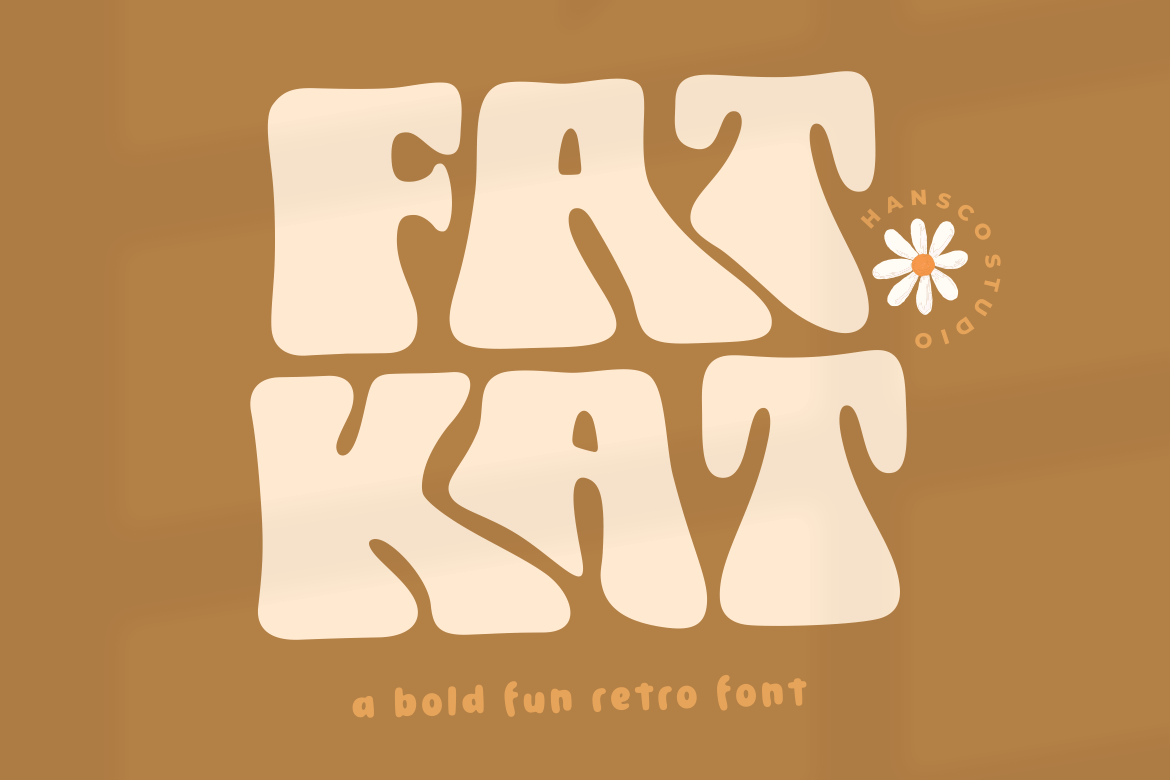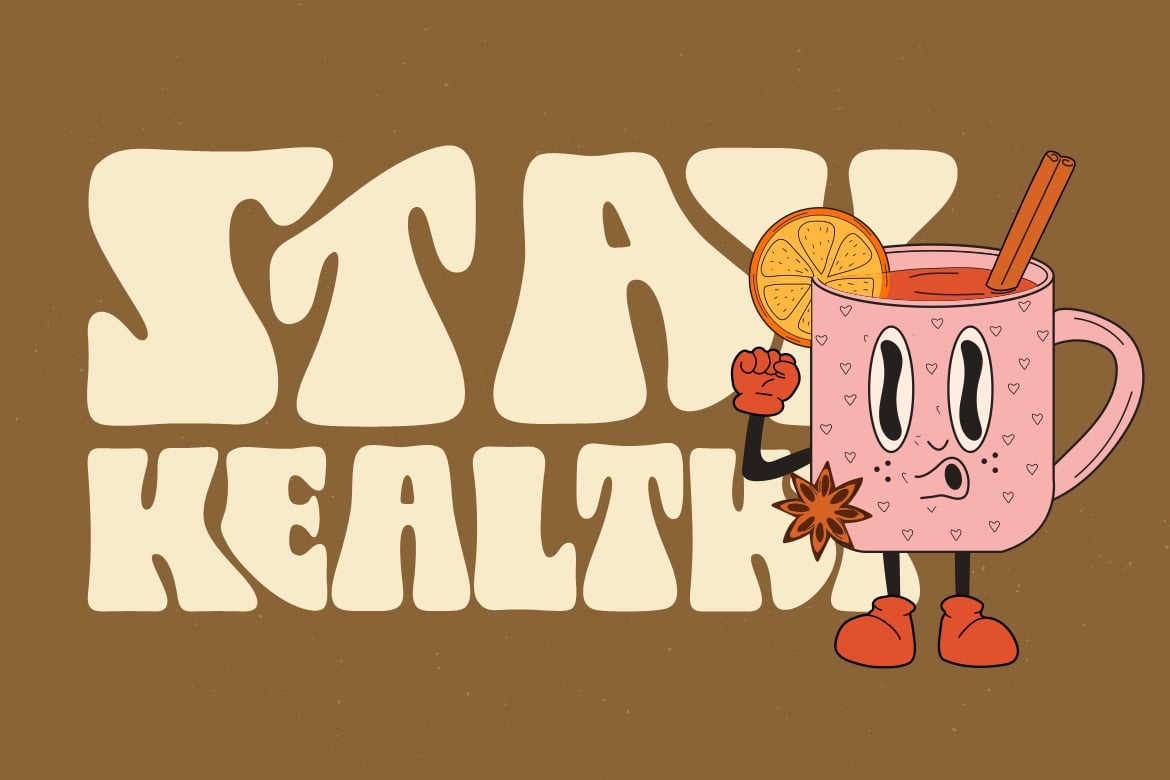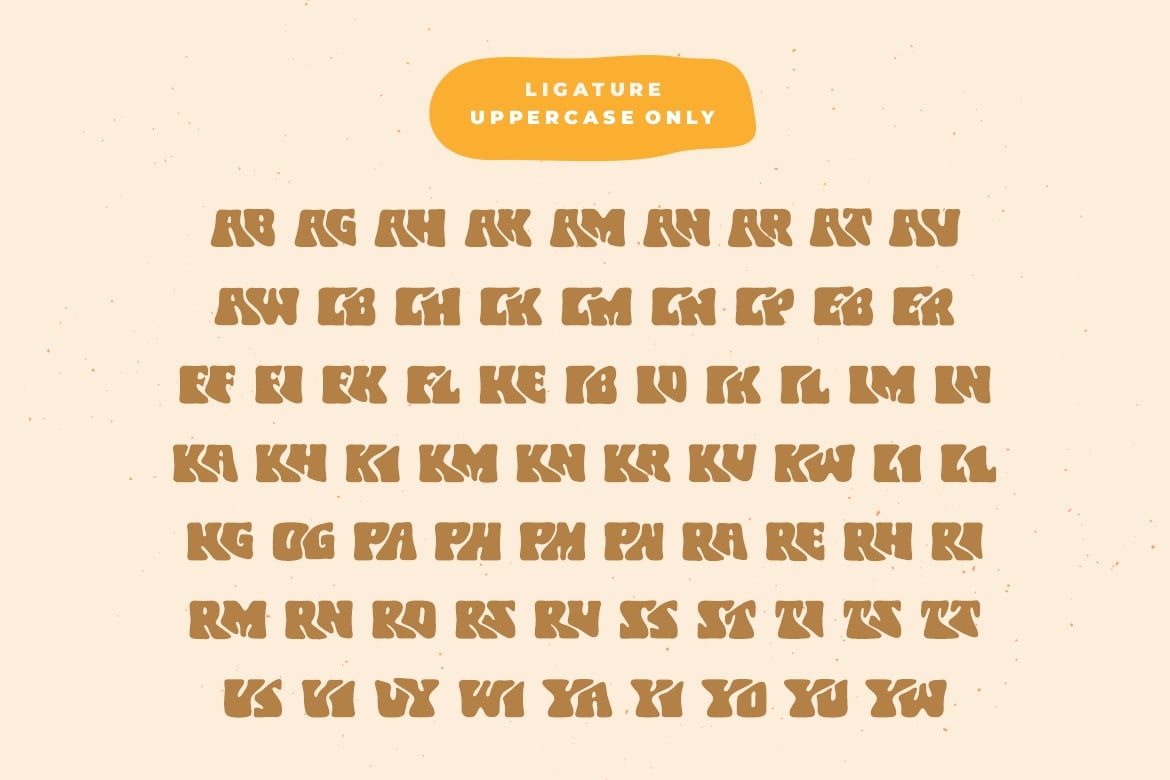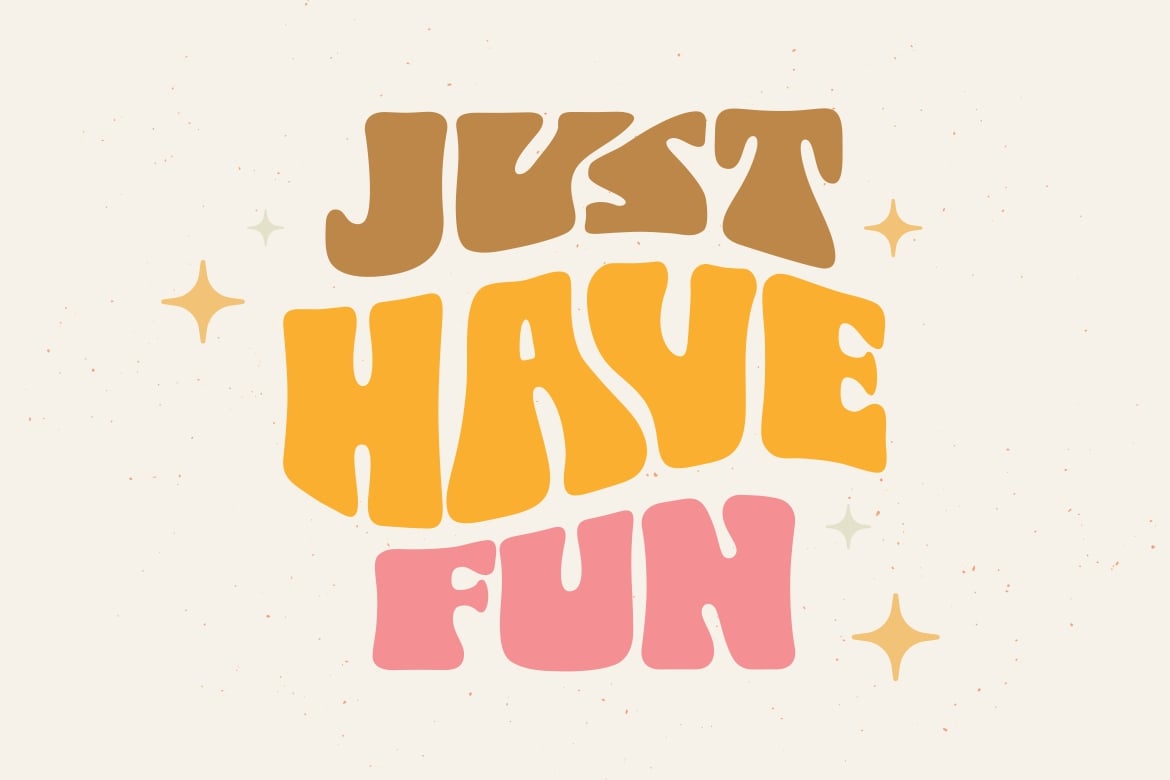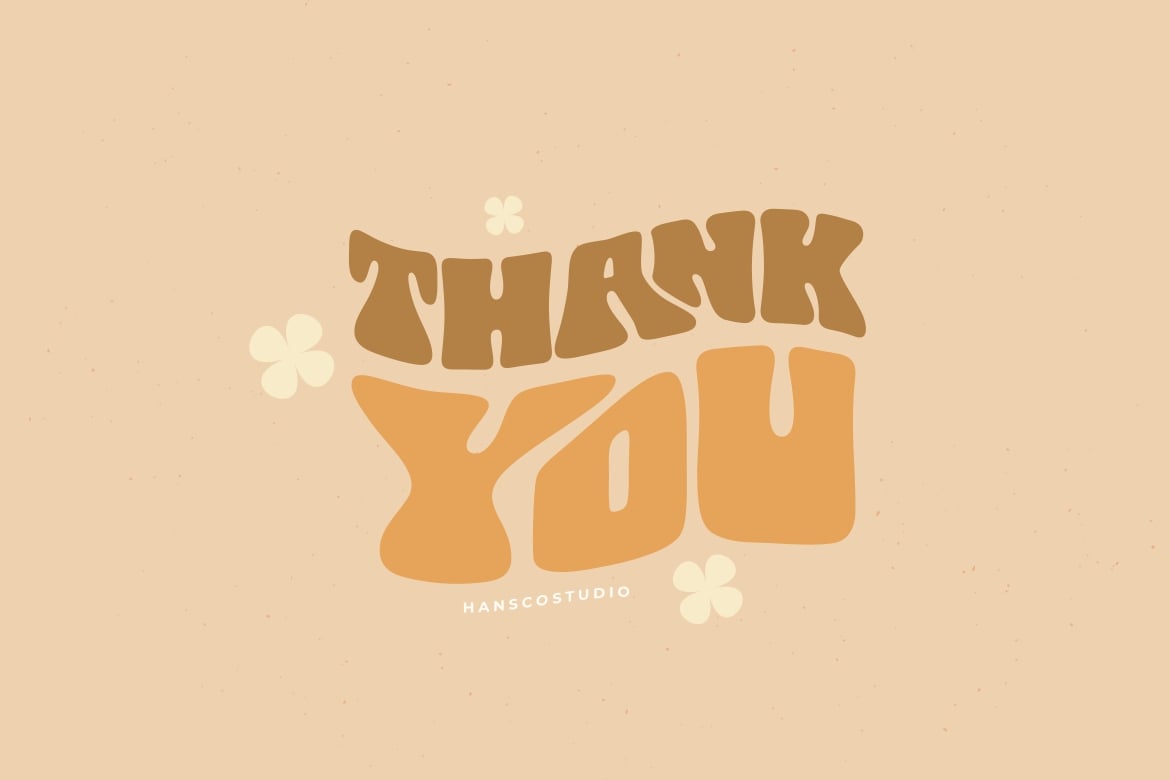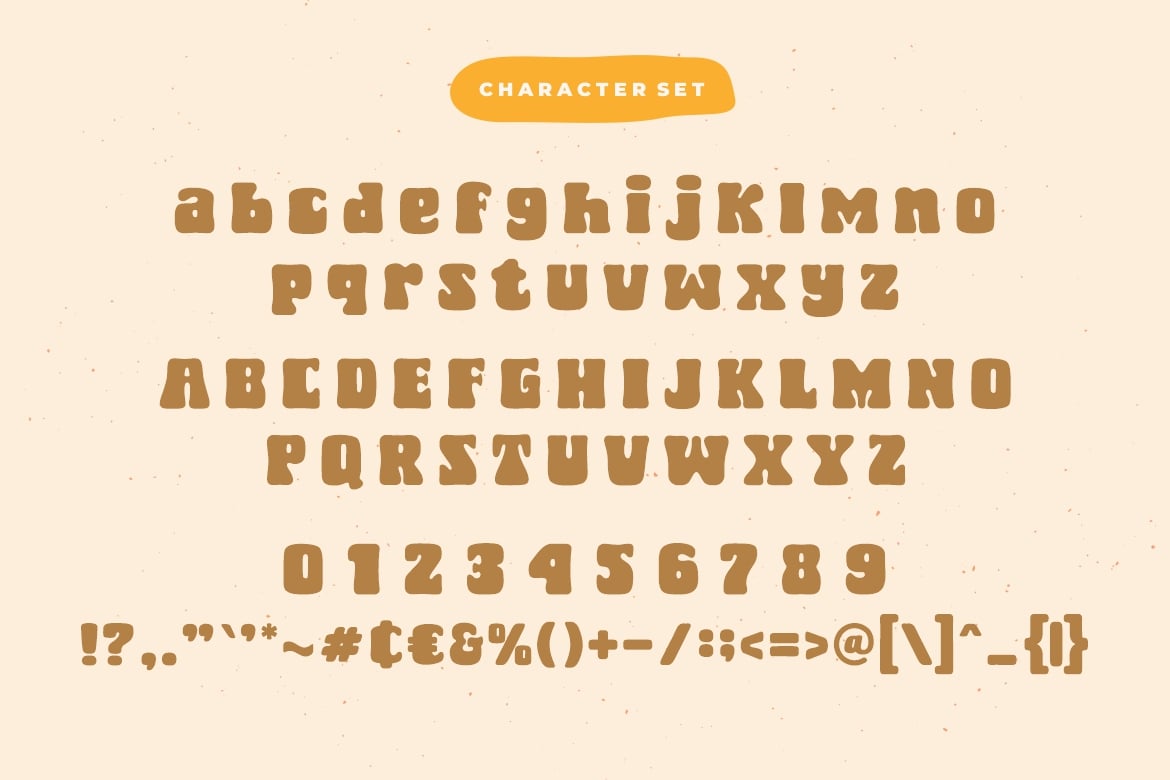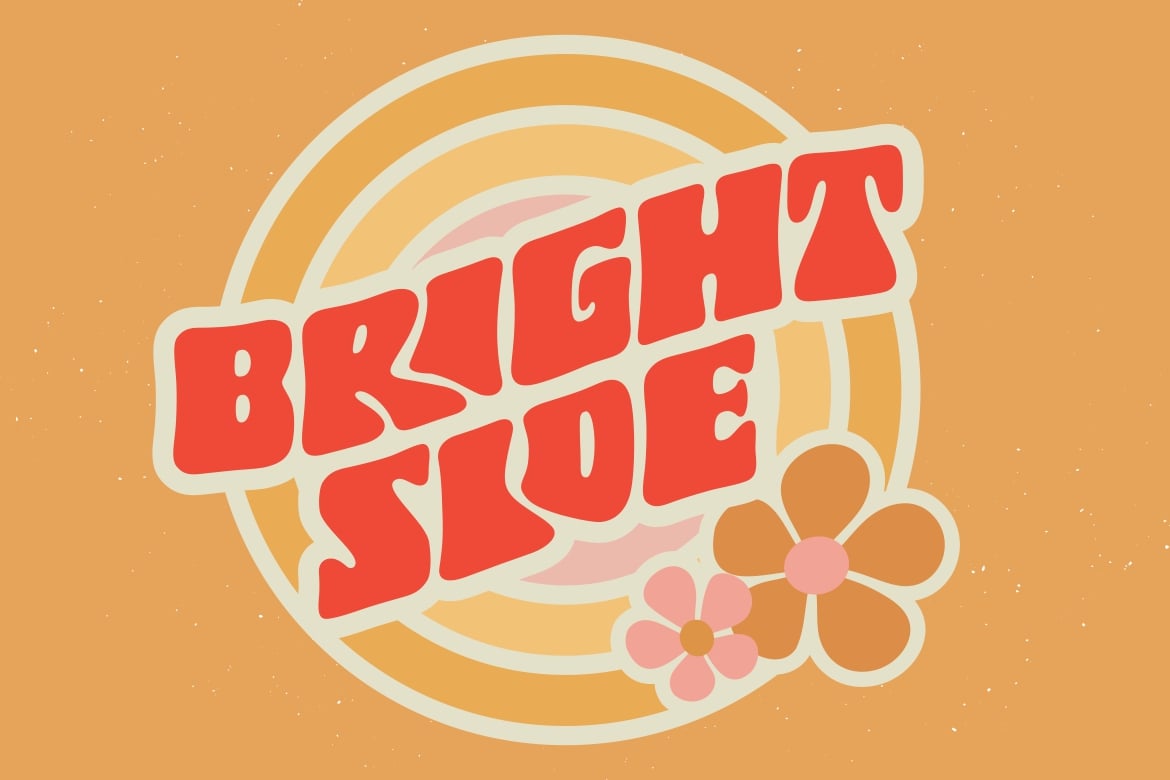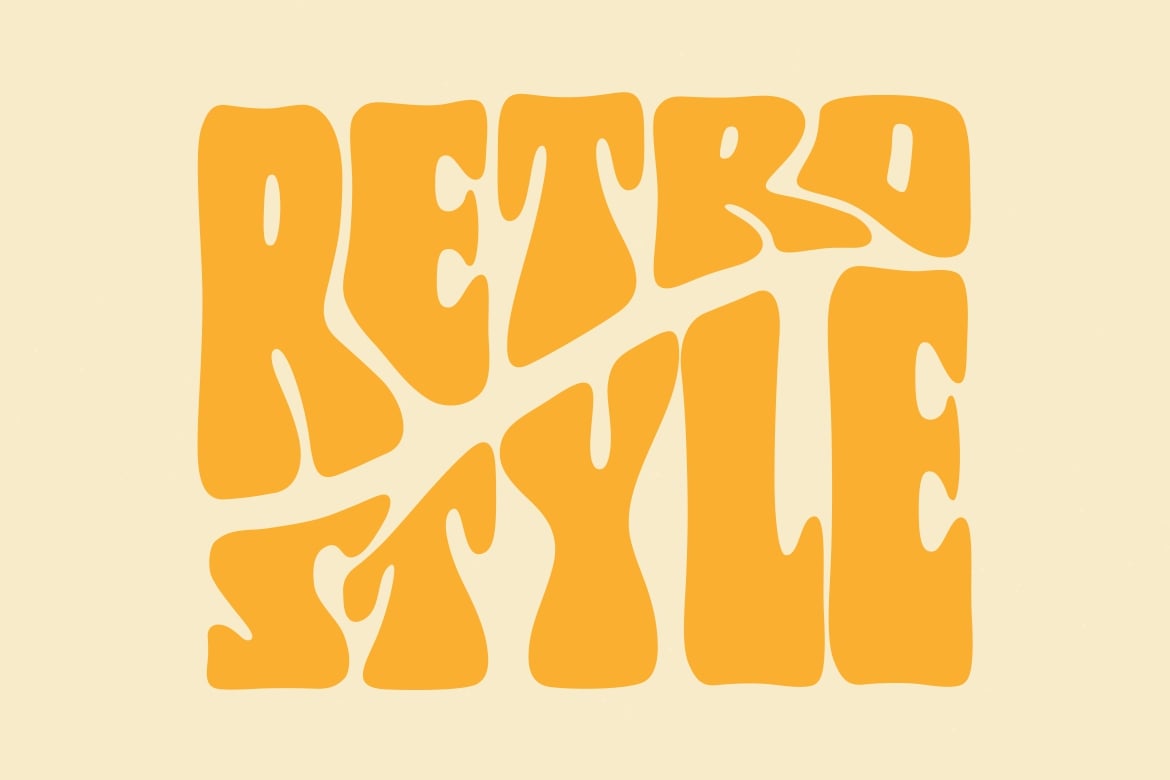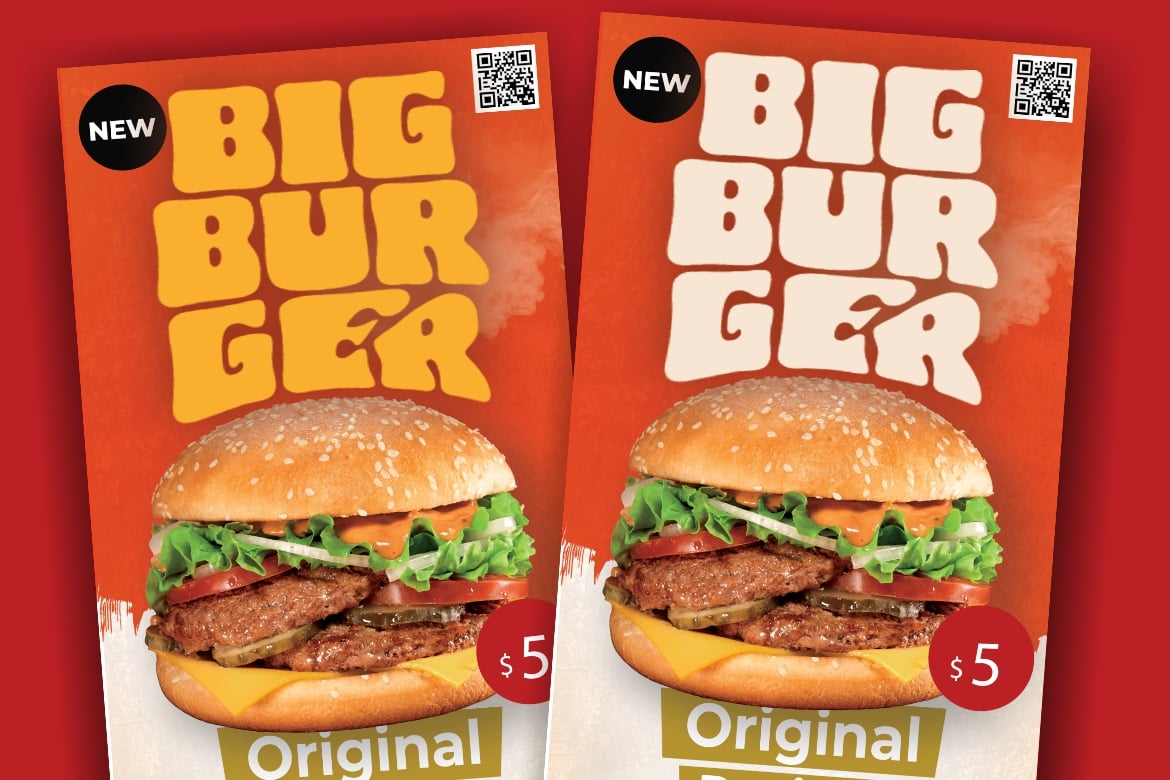
Fat Kat – Bold Playful Font
Fat Kat is a bold retro serif fonts that feels clean and fun an incredible modern retro aesthetic. This font features a ligature feature on capital letters which allows the font to look unique with a wavy style. Use this Fat Kat serif font to add that special modern retro touch to any design idea you can think of!